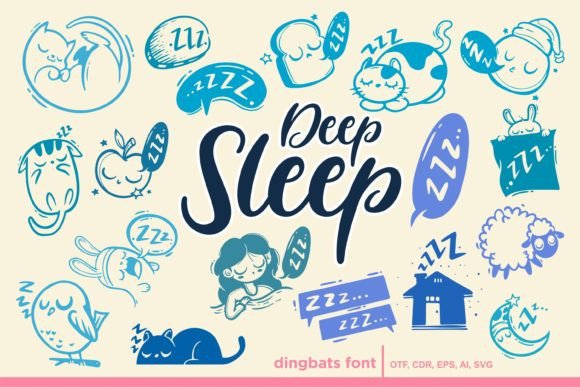
Deep Sleep Font: Elevate Your Creations with this Cool and Useful Dingbats Font
The world of typography is vast and diverse, with numerous fonts catering to various design needs. Among these, dingbats fonts hold a special place for their unique ability to add visual interest and personality to designs. One such font that has been making waves in the design community is the Deep Sleep Font. In this article, we’ll delve into what makes Deep Sleep a cool and useful dingbats font and how it can become an incredible asset to your font library.
What is Deep Sleep Font?
Deep Sleep Font is a dingbats font that stands out for its distinctive and creative design. Dingbats fonts, by definition, are symbol fonts that consist of graphical symbols, shapes, and icons rather than traditional alphabet characters. Deep Sleep Font leverages this concept to offer a collection of unique and visually appealing symbols that can be used across various design projects.
The font’s design is inspired by the concept of sleep and dreams, but it doesn’t limit its use to just sleep-related topics. Its versatility allows it to be applicable in a wide range of contexts, from adding decorative elements to your text to creating engaging and eye-catching visuals.
Features and Benefits of Deep Sleep Font
- Unique Design: The Deep Sleep Font boasts a unique design that sets it apart from more traditional fonts. Its symbols and icons are creatively designed to add a touch of personality to any design.
- Versatility: Despite its theme, the Deep Sleep Font is incredibly versatile. It can be used for various purposes, including but not limited to, sleep and wellness-related projects, creative arts, and even educational materials.
- Ease of Use: The font is easy to integrate into any design project. Whether you’re working on a print project, a digital platform, or a multimedia presentation, incorporating Deep Sleep Font is straightforward.
- Scalability: One of the key benefits of using a well-designed font like Deep Sleep is its scalability. The font remains clear and visually appealing even when scaled up or down, making it suitable for a wide range of applications.
- Compatibility: Deep Sleep Font is designed to be compatible with various software and platforms, ensuring that designers can use it across different workflows without any issues.
Practical Applications of Deep Sleep Font
The practical applications of Deep Sleep Font are vast. Here are a few examples:
- Graphic Design: Use Deep Sleep Font to create engaging posters, flyers, and brochures. The font’s unique symbols can help grab the audience’s attention and convey messages more effectively.
- Web Design: Enhance your website’s visual appeal by incorporating Deep Sleep Font into your design elements, such as icons, headings, and even decorative elements for your website’s layout.
- Social Media Content: Stand out on social media platforms by using Deep Sleep Font in your posts and stories. The font can add a creative touch to your content, making it more engaging for your followers.
- Educational Materials: For educators and content creators, Deep Sleep Font can be a valuable asset in creating engaging and interactive learning materials, such as workbooks, presentations, and activity sheets.
- Branding and Marketing: Use Deep Sleep Font to create a unique brand identity. The font’s distinctive style can help brands stand out and convey their message in a visually appealing way.
Tips for Effective Use of Deep Sleep Font
To make the most out of Deep Sleep Font, consider the following tips:
- Mix and Match: Don’t be afraid to combine Deep Sleep Font with other fonts. A well-chosen font pairing can enhance the overall aesthetic of your design.
- Consider Context: While Deep Sleep Font is versatile, ensure that its use aligns with the tone and purpose of your project. The font’s playful nature makes it suitable for creative and informal projects.
- Adjust Size and Color: Experiment with different sizes and colors to make the font pop. The right size and color can significantly impact how your message is received.
- Legibility: Ensure that your use of Deep Sleep Font does not compromise legibility. Balance decorative elements with clear, readable text to effectively communicate your message.
Deep Sleep Font is more than just a dingbats font; it’s a tool that can elevate your designs and add a unique touch to your projects. Its versatility, combined with its distinctive design, makes it an incredible asset to your font library, regardless of the topics you work on. By incorporating Deep Sleep Font into your design workflow, you can create visually appealing and engaging content that stands out.
Whether you’re a professional designer, a content creator, or someone who loves to dabble in design, Deep Sleep Font offers endless possibilities for creativity and expression. So, explore its features, experiment with its applications, and discover how this cool and useful dingbats font can transform your designs.